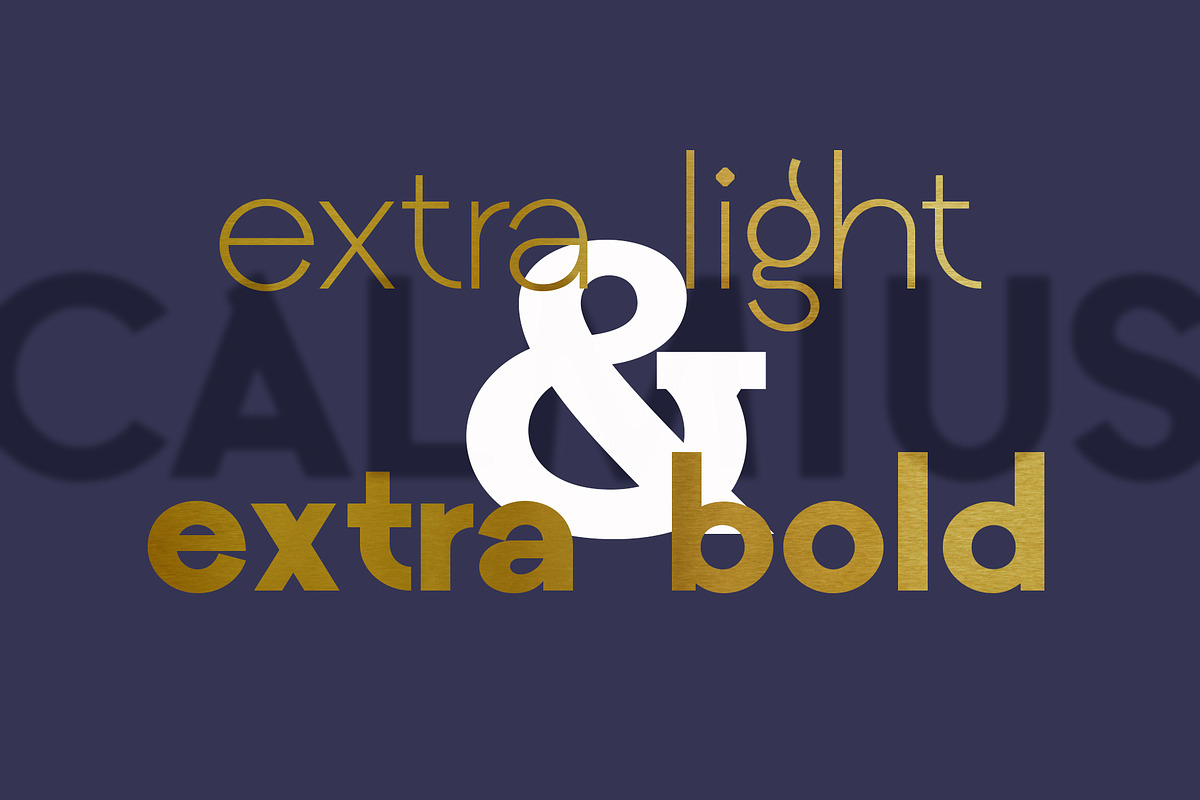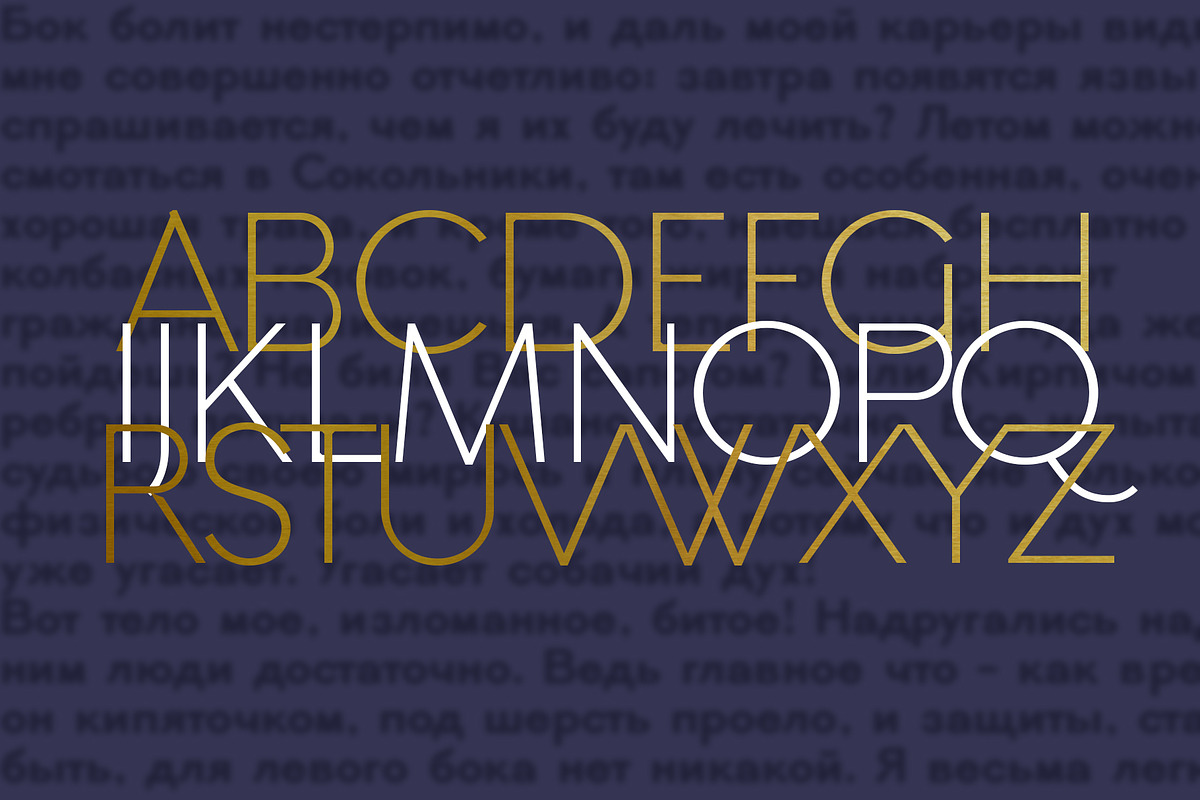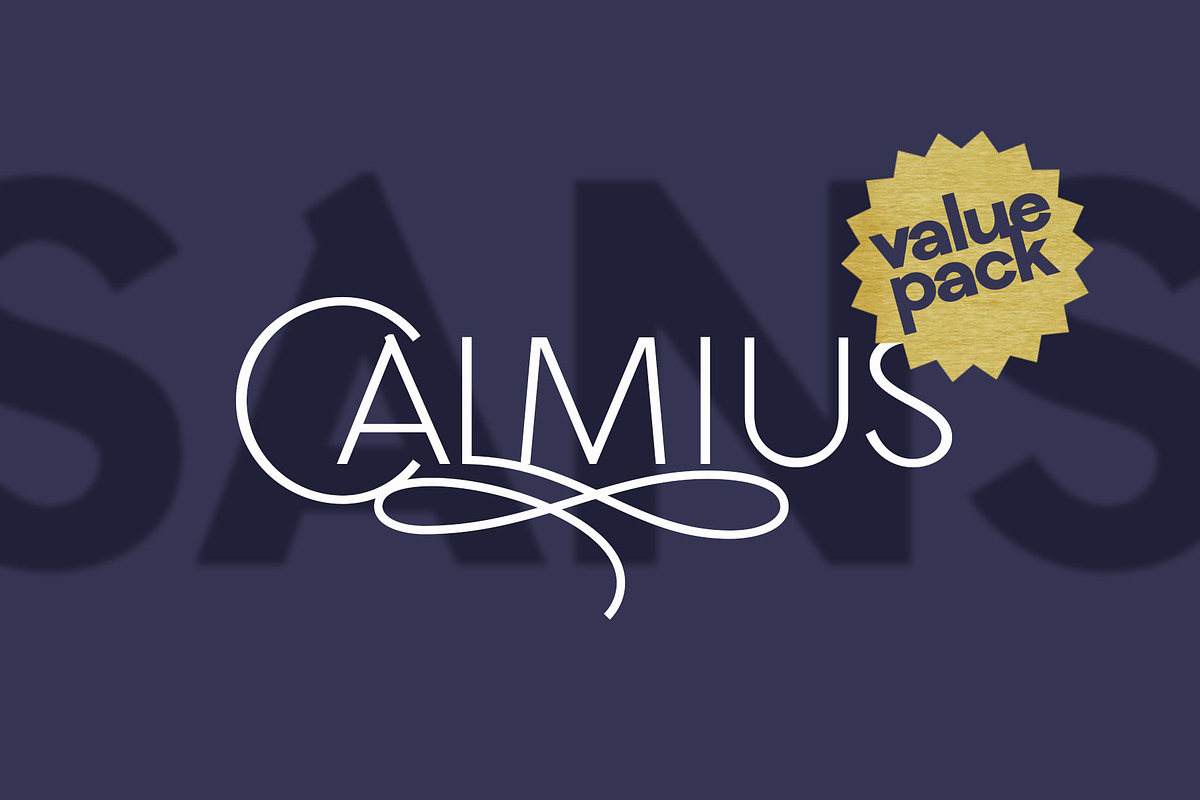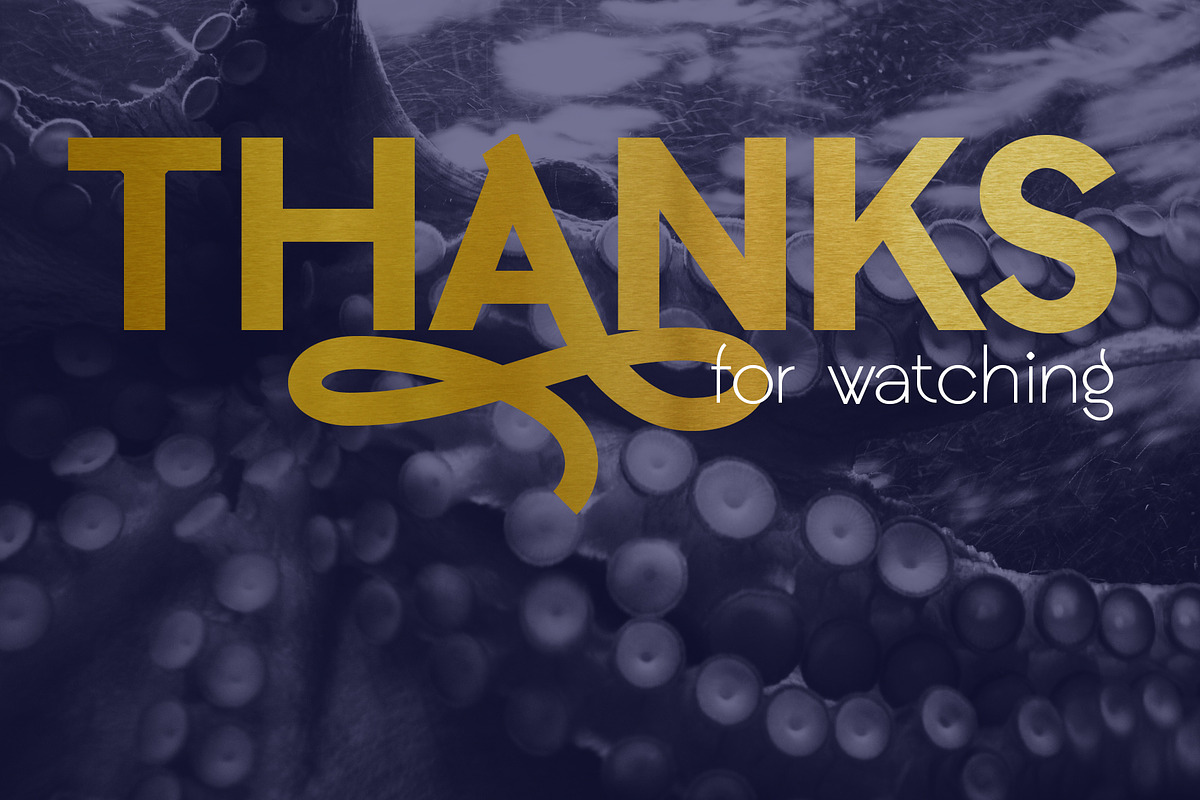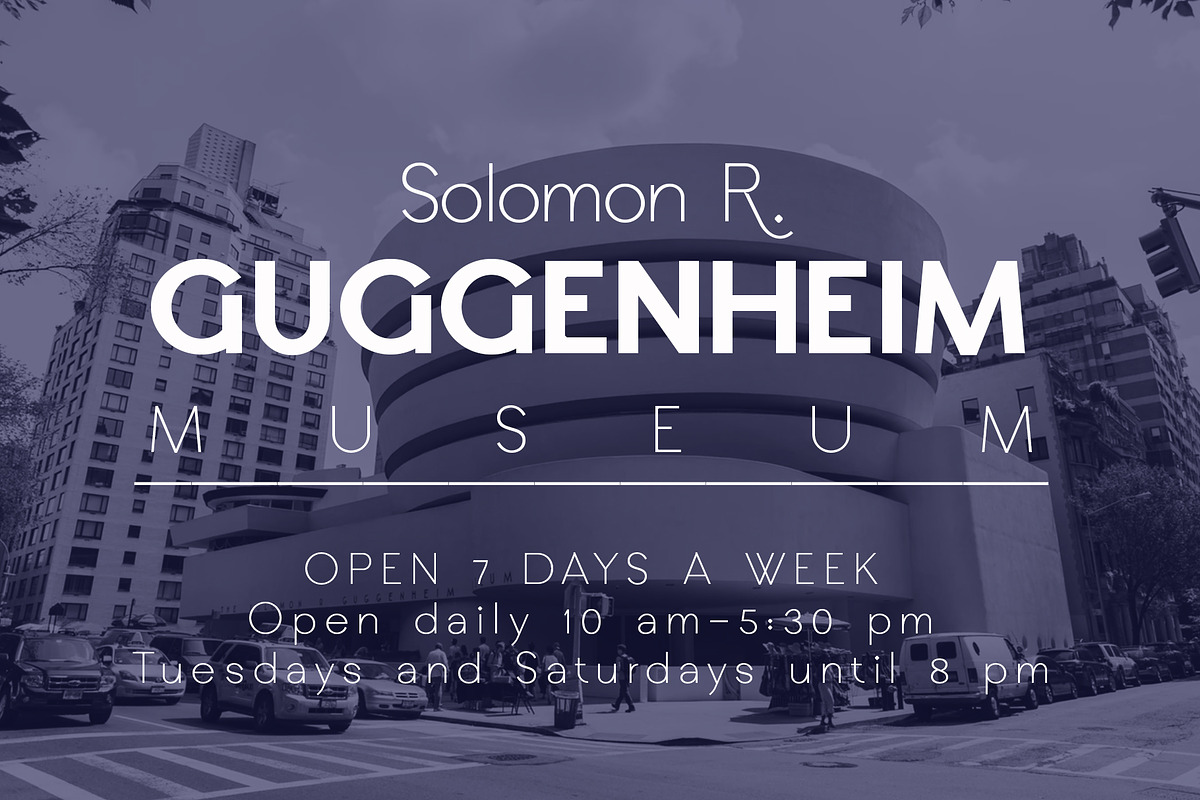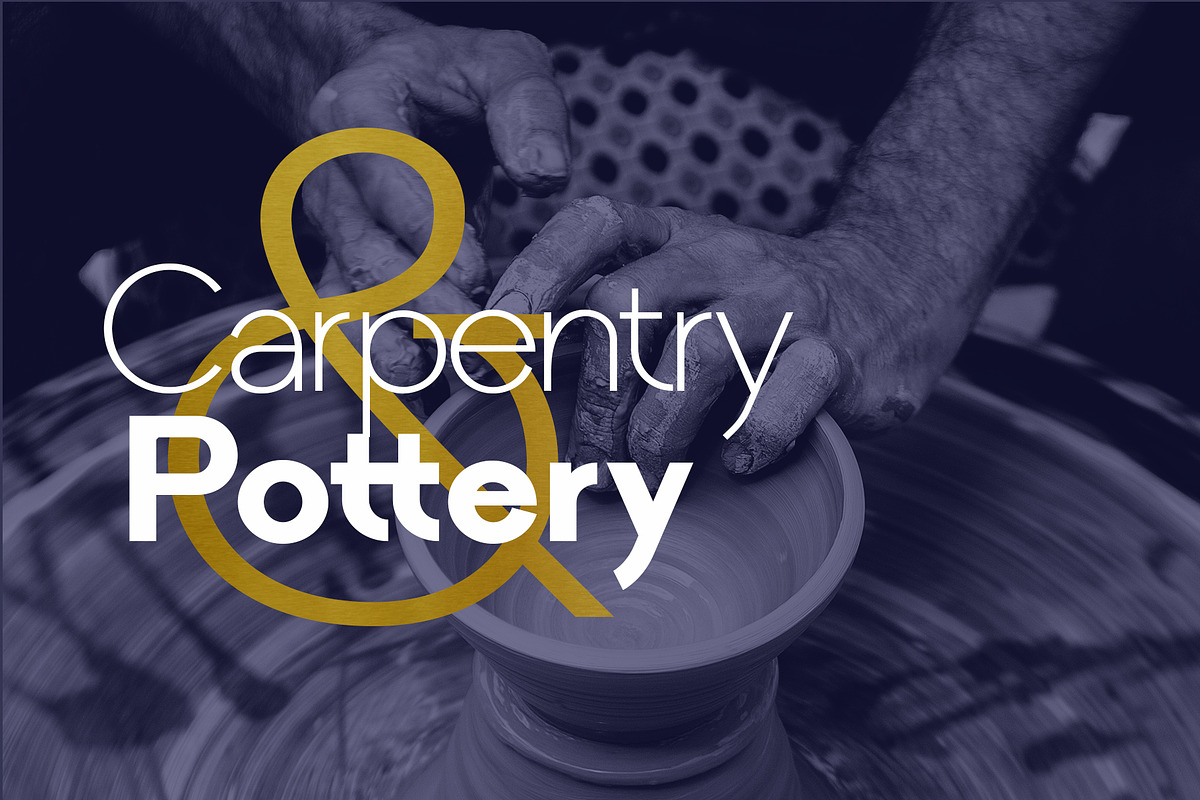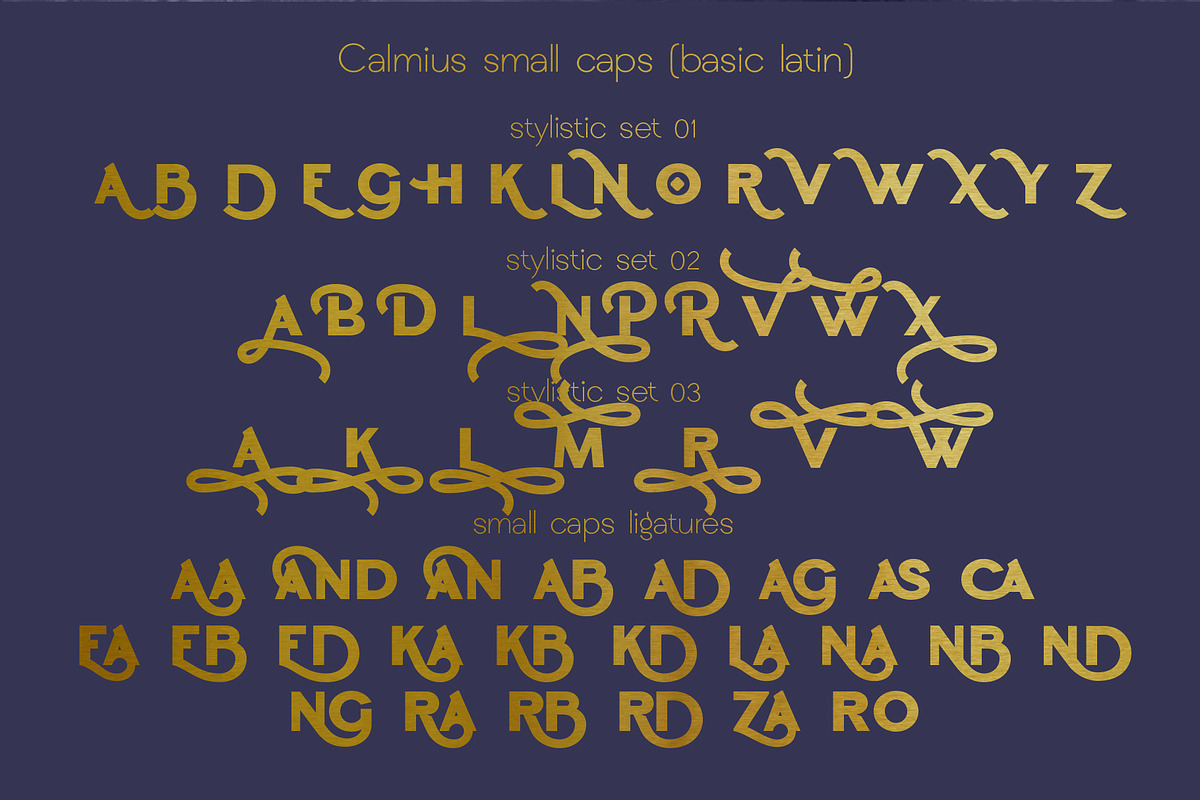
Calmius Sans
Happy to present mono contrasted Calmius Sans Extra Light & Extra Bold
Calmius is modern sans-serif font family, without contrast. It perfectly represents modern and vintage esthetics. The font includes small caps letters, stylistic alternates, oldstyle figures and beautiful ligatures.
The font is perfect for wedding elegant invitation cards, beauty and fashion package design, very suitable for books design, magazines typography, packaging, branding and more other creative project.
It have supporting for many languages as: Afrikaans, Basque, Belarusian, Bosnian, Catalan, Croatian, Czech, Danish, Dutch, English, Estonian, Faroese, Filipino, Finnish, French, Galician, German, Icelandic, Indonesian, Irish, Italian, Latvian, Lithuanian, Macedonian, Malay, Norwegian Bokmål, Portuguese, Romanian, Russian, Serbian, Slovak, Slovenian, Spanish, Swahili, Swedish, Turkish, Ukrainian, Zulu